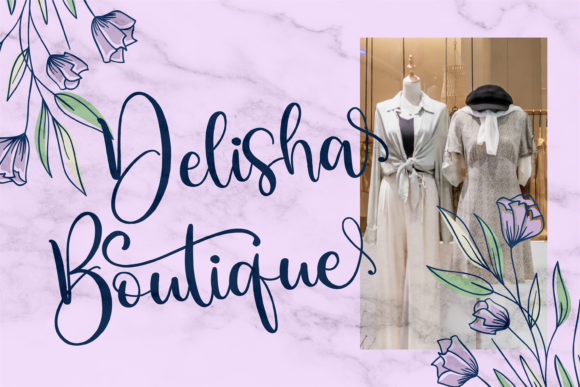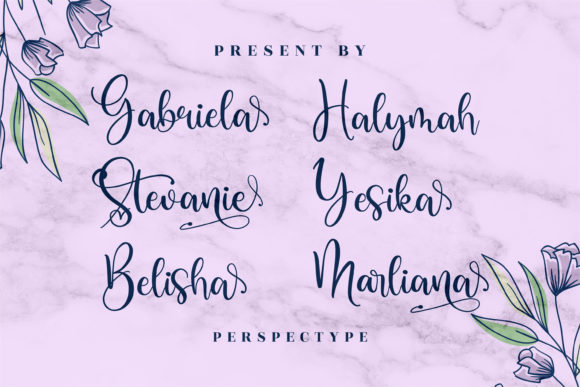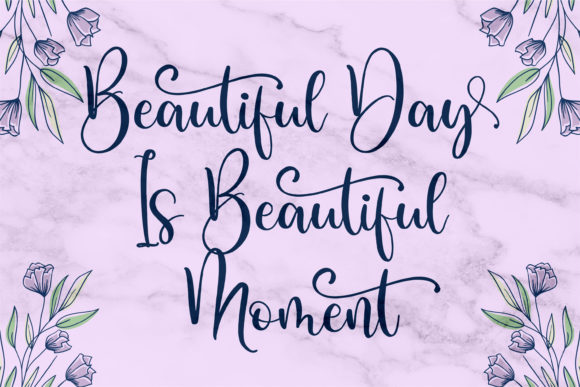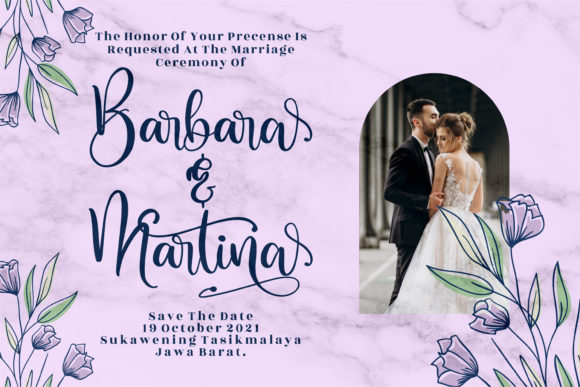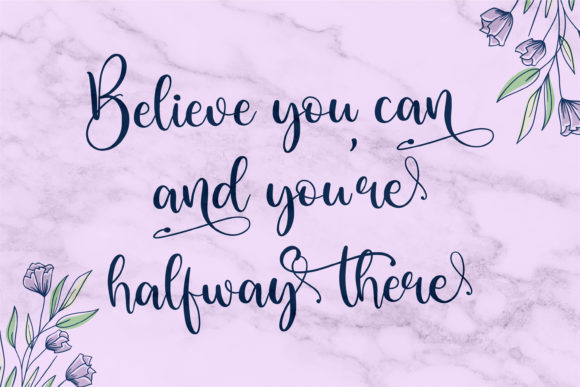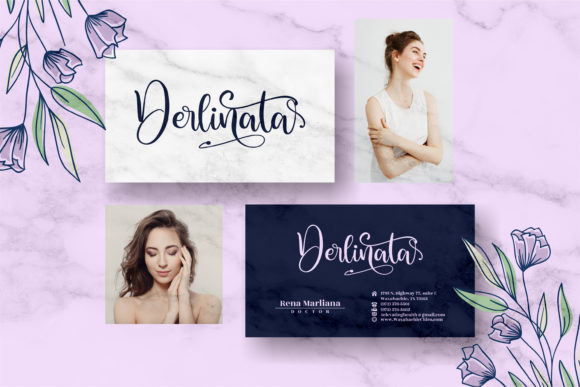
Unleashing Creativity with the Delisha Glande Font
As a designer, have you ever found yourself stuck in a creative rut, staring blankly at a blank page, searching for that perfect font to bring your vision to life? It’s a familiar feeling, but one that’s about to become a thing of the past with the introduction of the stunning Delisha Glande Font.
This beautifully crafted script font is designed to add a touch of elegance and sophistication to any design project. With its intricate details and smooth curves, the Delisha Glande Font is the perfect choice for designers looking to create stunning typography. And with its PUA encoding, accessing all the glyphs and swashes is a breeze, making it a valuable addition to any designer’s toolkit.
Delisha Glande Font Key Features
- Font Family: Delisha Glande is a display font, available in a single weight.
- Character Set: The font includes a wide range of characters, including Latin, Cyrillic, and Greek alphabets, as well as punctuation and symbols.
- Size: The font is available in a single size, with a height of approximately 600-800 points, making it suitable for large-scale use.
- Resolution: The font is optimized for high-resolution displays and prints, with a resolution of 300 DPI or higher.
- Unique Characteristics: Delisha Glande features a distinctive, hand-drawn design with intricate details and flourishes, making it a unique and eye-catching choice for titles and headings.
Delisha Glande Font Review
At first glance, the Delisha Glande Font seems like a quirky and playful addition to any design project. ✨ Its unique letterforms and rounded edges evoke a sense of whimsy and charm. The font’s versatility makes it suitable for various design applications, from digital interfaces to print materials.
Here are some of the Delisha Glande Font’s strengths:
- ✨ Wide range of applications: The font’s adaptability makes it suitable for various design projects, from digital to print.
- ✨ Unique letterforms: The font’s distinctive lettering style adds a touch of personality to any design.
- ✨ Rounded edges: The rounded edges of the font give it a friendly and approachable feel.
- ⚠️ Limited legibility: In certain font sizes or contexts, the Delisha Glande Font can be difficult to read.
- ⚠️ Limited support for special characters: The font may not include support for special characters or diacritical marks.
Overall, I would say that the Delisha Glande Font is a fun and creative addition to any design project. While it may have some limitations, its unique style and versatility make it a great choice for designers looking to add a touch of personality to their work.
Tips for Getting the Most Out of Delisha Glande Font
Use Delisha Glande font for titles, headings, and other attention-grabbing text elements.
Pair Delisha Glande font with other fonts to create a unique and visually appealing design.
Experiment with different font sizes and colors to create a striking visual effect.
Delisha Glande font is ideal for:
Designing business cards, brochures, and other marketing materials.
Creating eye-catching social media graphics and advertisements.
Adding a touch of elegance to wedding invitations and other special occasion designs.
Alternatives to Delisha Glande Font
Great Vibes is a modern, cursive script font that is perfect for creating a sophisticated and elegant look. It is ideal for use in branding, invitations, and other applications where a touch of sophistication is needed.
Compared to Delisha Glande Font, Great Vibes has a more refined and polished appearance, making it a better choice for high-end designs. However, it lacks the whimsical feel of Delisha Glande Font.
Carolyna Pro is a elegant, modern script font that is perfect for creating a luxurious and sophisticated look. It is ideal for use in branding, packaging, and other applications where a touch of elegance is needed.
Compared to Delisha Glande Font, Carolyna Pro has a more refined and polished appearance, making it a better choice for high-end designs. However, it lacks the playful feel of Delisha Glande Font.
Alex Brush is a elegant, modern script font that is perfect for creating a sophisticated and elegant look. It is ideal for use in branding, invitations, and other applications where a touch of sophistication is needed.